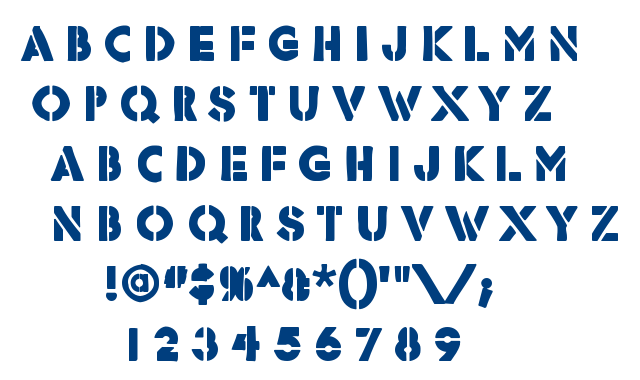
Tiny Small Medium Large Rafika font typodermic Website rafika.ttf Download 1574 downloads Freeware Category: Fancy » Stencil, Army Rafika is a rough, painted stencil font. Don’t forget to read the files inside the zip for details. Updated in 2012. Character Map specimen sheet